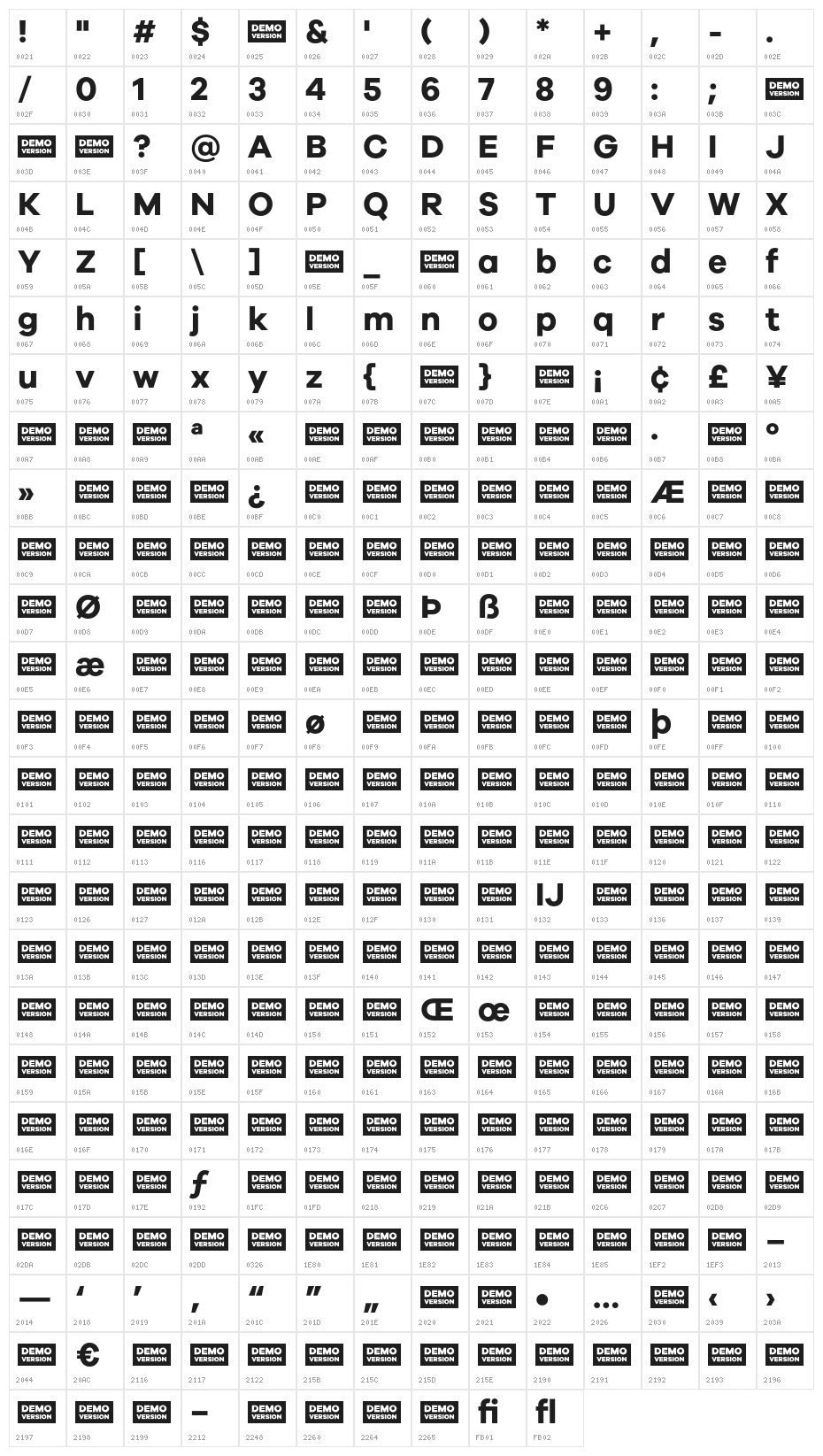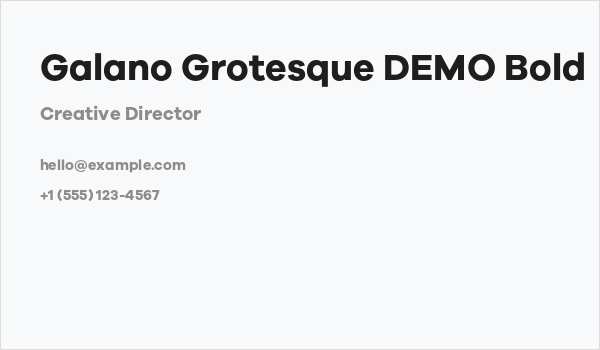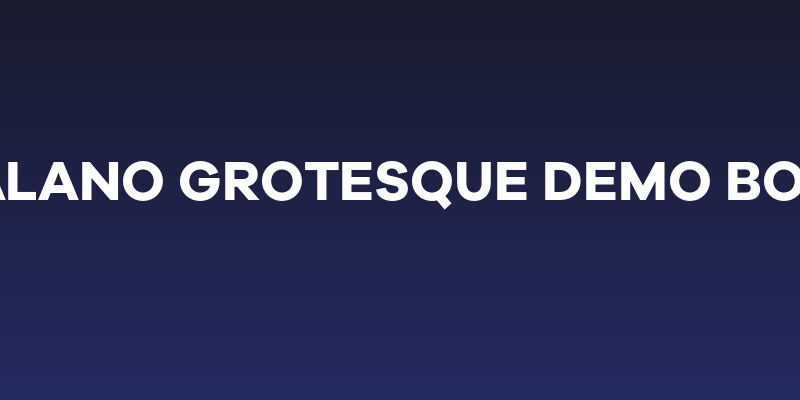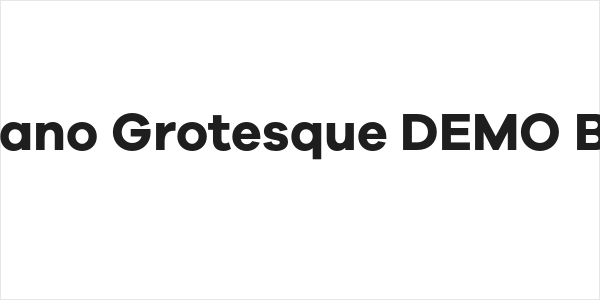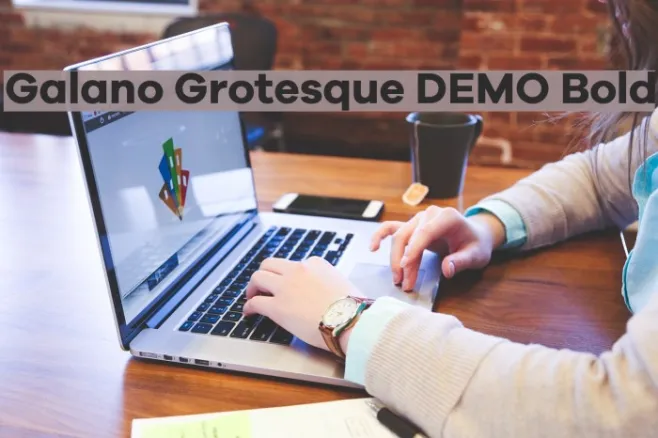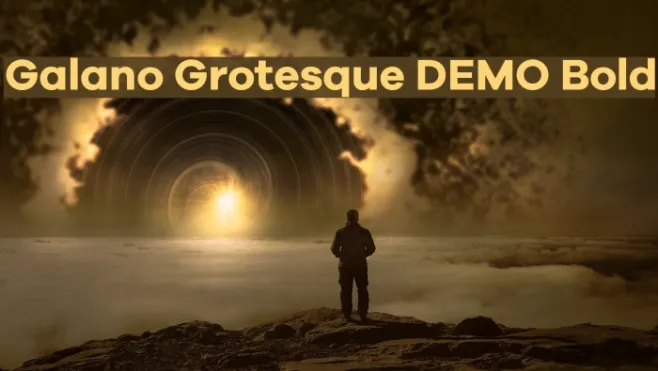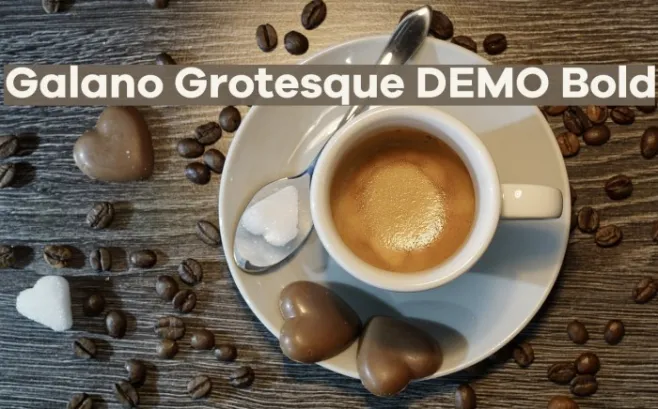
Galano Grotesque DEMO Bold Font
Galano Grotesque DEMO Bold Description
This font is a bold, modern sans-serif typeface characterized by its clean lines and geometric shapes. The uppercase and lowercase letters are well-proportioned, with a consistent stroke width that gives it a uniform appearance. The numbers are clear and easy to read, making them suitable for various applications. Special characters are included, maintaining the font's cohesive style. The overall design is minimalistic yet impactful, making it versatile for both digital and print media.
| Use Case | Headlines, Logos, Branding |
| Proposed Projects | Ideal for branding, advertising, headlines, and digital media projects where a strong, modern presence is desired. |